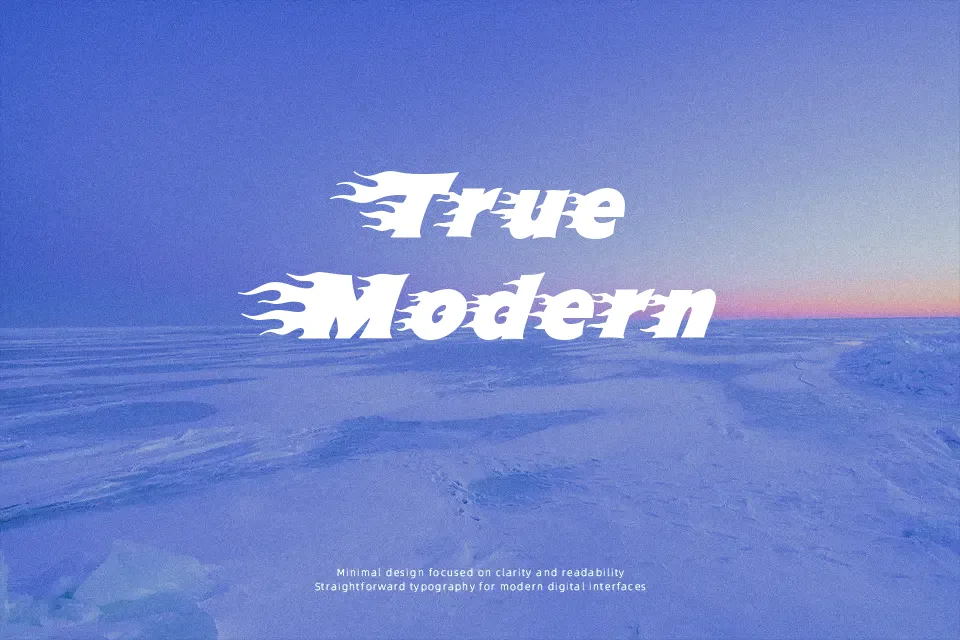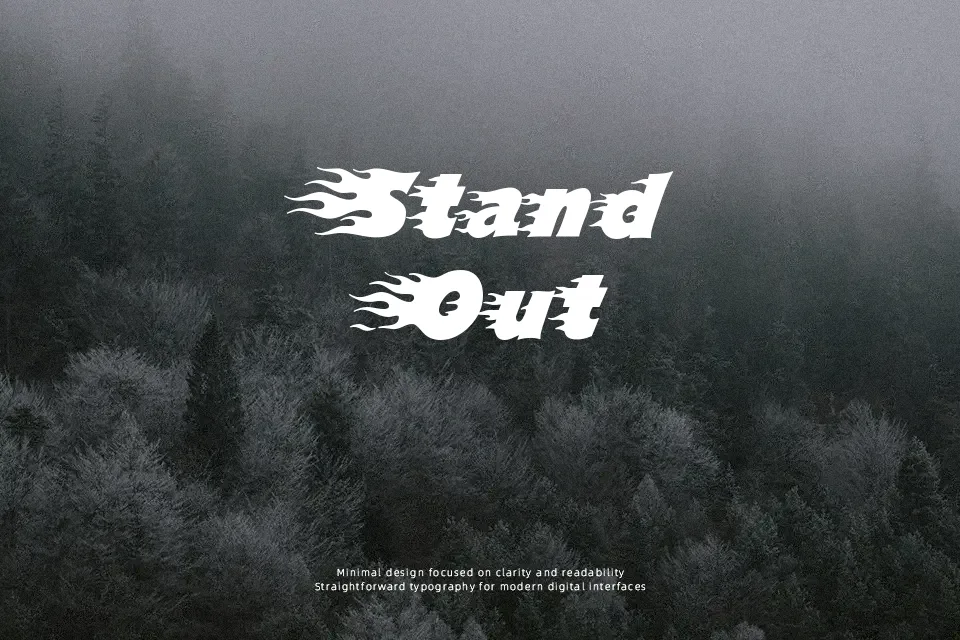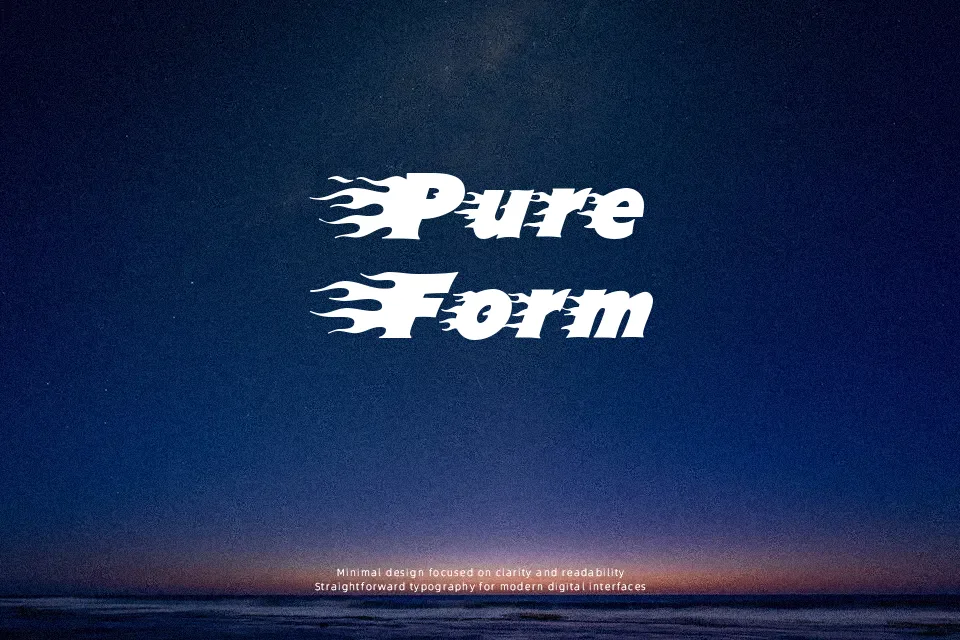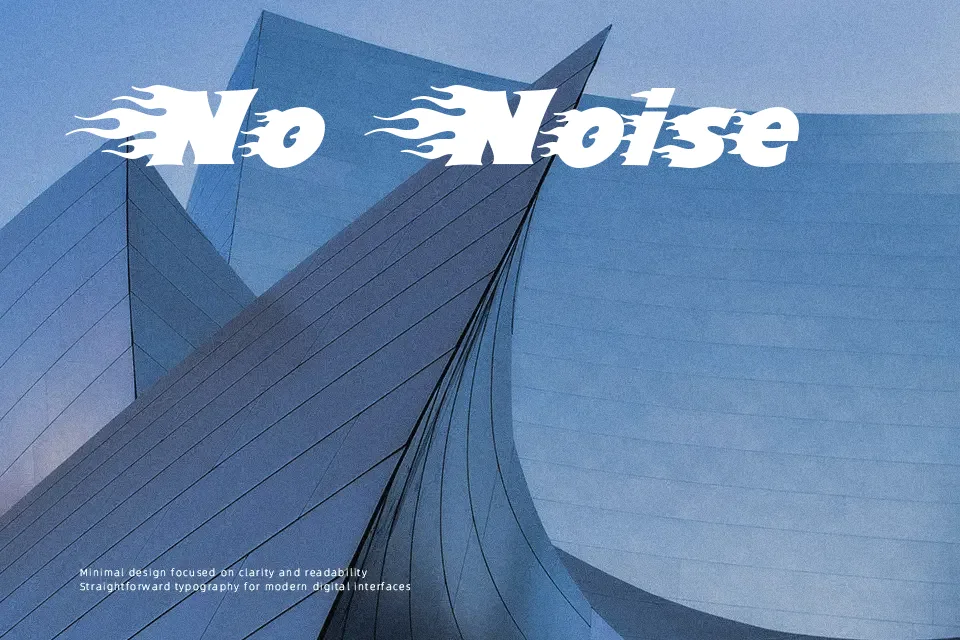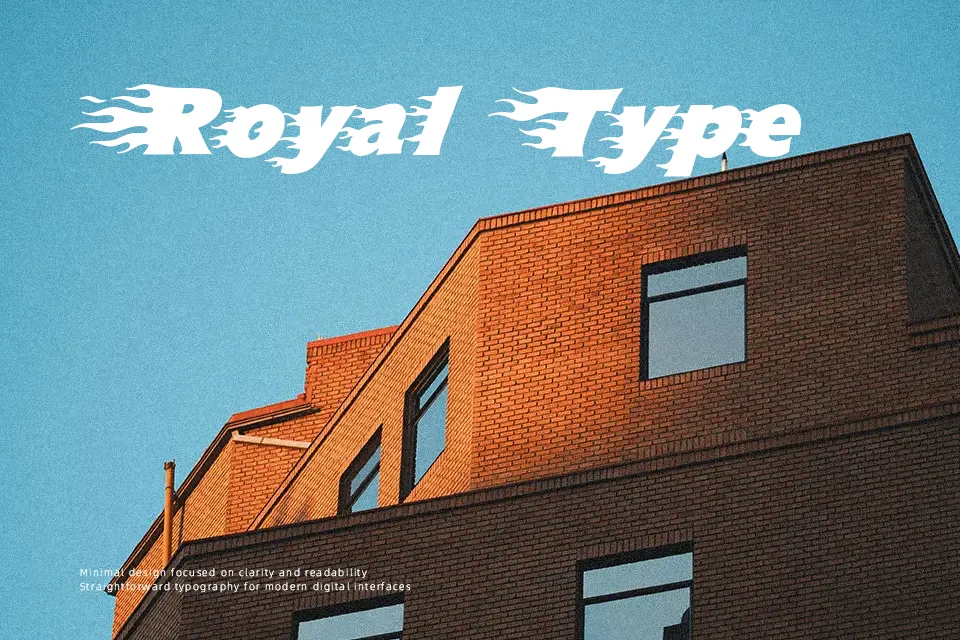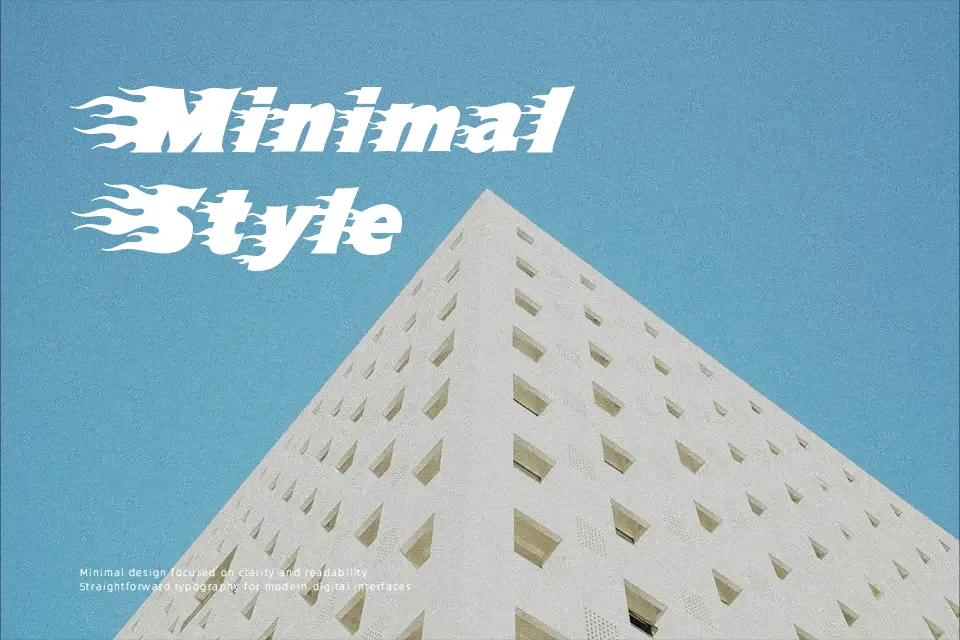
Blazed Font
Blazed is an intensely decorative display font defined by flame-shaped terminals, jagged contours, and heavy, aggressive strokes. Its unpredictable letterforms create the illusion of active burning, projecting a chaotic and high-energy impression. This unapologetically loud typeface thrives in large, commanding sizes, making it highly effective for dirt bike rally posters, hot sauce packaging, and action game title screens. It performs exceptionally well when a design demands heat, speed, or raw power. However, due to its highly illustrative nature and irregular spacing, it quickly loses legibility at smaller scales and should never be applied to formal layouts. Compared to subtle distressed typefaces, Blazed takes a much more literal, dramatic approach that demands center stage.
Extreme sports event posters
High-intensity gaming logos
Spicy food or hot sauce packaging
Corporate or professional branding
Dense body text or small print
Clean minimalist UI design
Perfect for gaming, logo, and packaging, with a bold and decorative style.